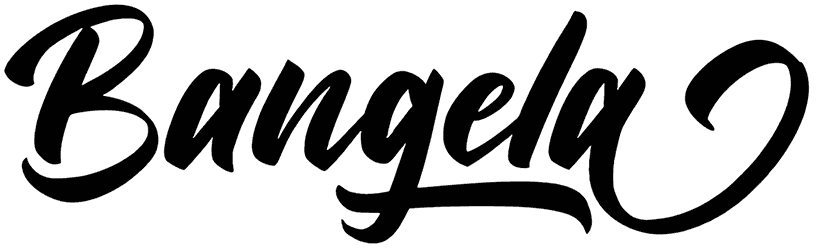
Bangela Font
Let’s introduce a brush font with a cool hand style to you. Its winsome impression can refresh the viewers to make use of Bangela at once and go ahead of others. Its artistic and dramatic effect is available to anyone who dreamed of being a professional designer.
With breathtaking tones, this script font can be memorialized by everyone to do well from its natural style in many posters, covers, greeting cards, and anything that needs to be realistic.